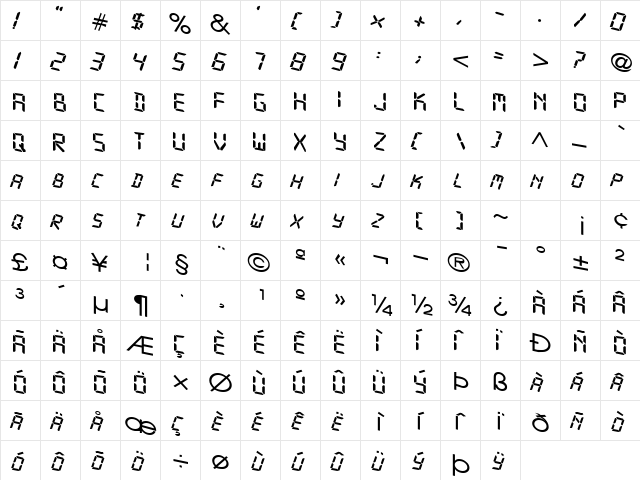
Man Regular
Design Context for Man Typeface
Man is a composed and adaptable typeface that performs quietly and consistently across a wide range of design contexts.